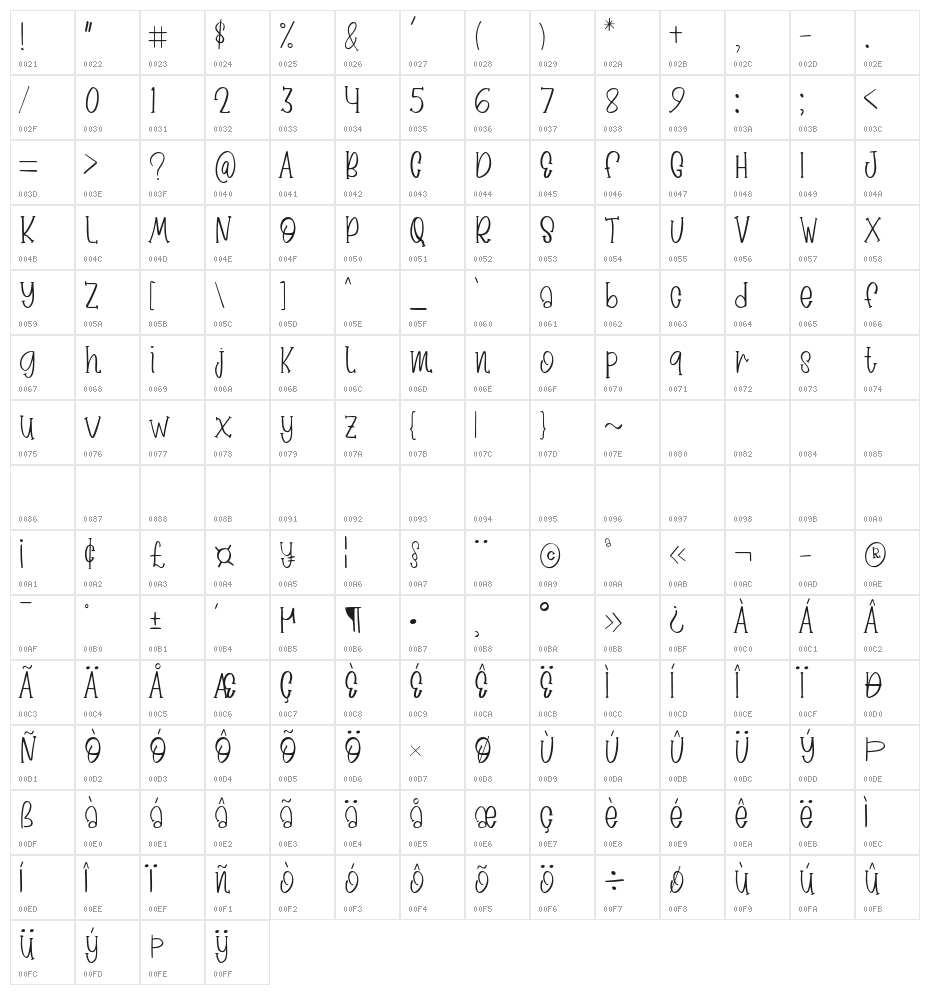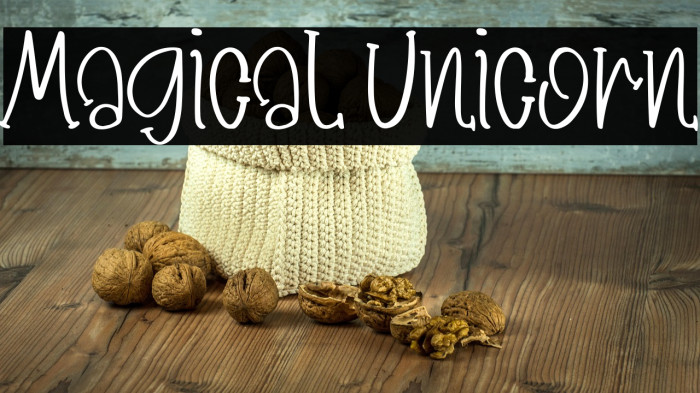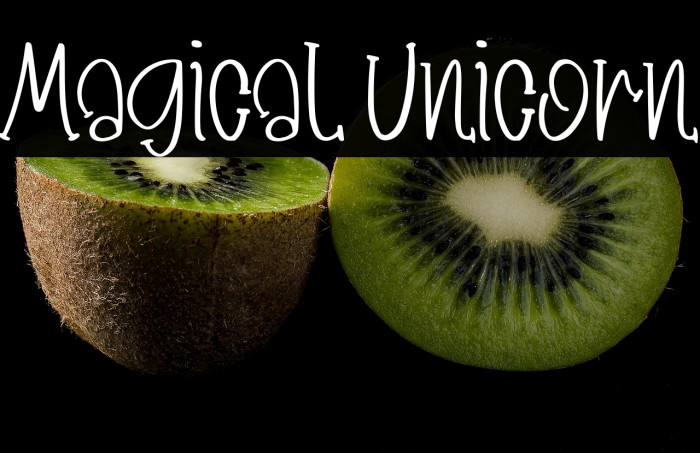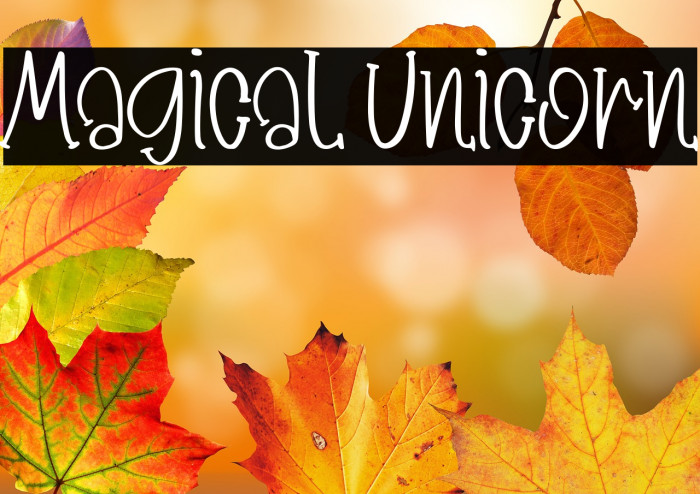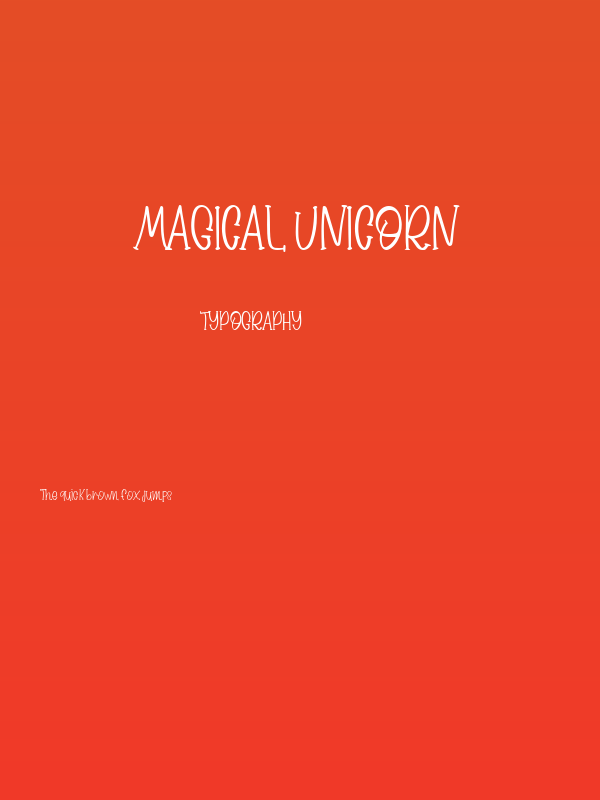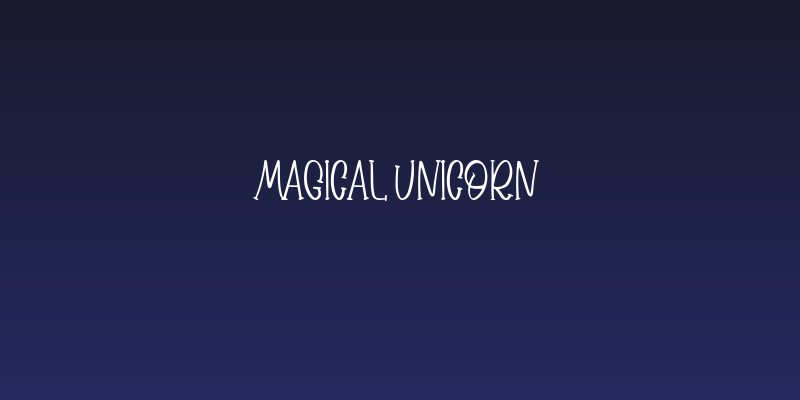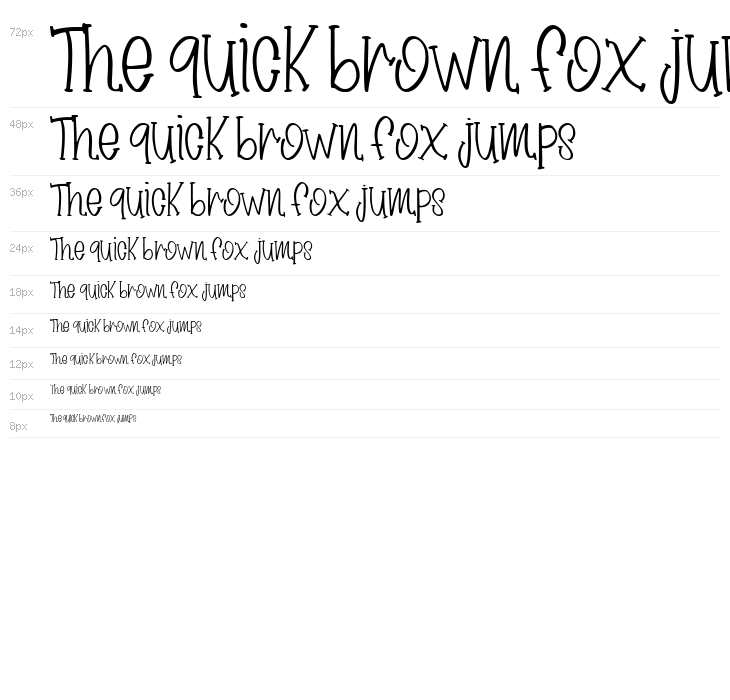
Magical Unicorn Font
Magical Unicorn Description
This whimsical and playful font features a handwritten style with a touch of elegance. The characters are slightly irregular, adding a charming and unique personality to the text. The uppercase letters are tall and slender, with a slight curl at the ends, while the lowercase letters maintain a consistent flow with rounded edges. Numbers and special characters follow the same playful theme, making them suitable for creative projects. The overall design is light-hearted and imaginative, perfect for capturing attention and conveying a sense of fun.
| Proposed Projects | Ideal for children's books, greeting cards, playful branding, and creative invitations. |